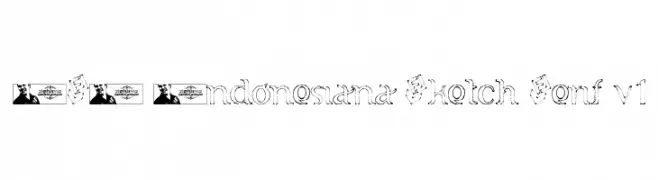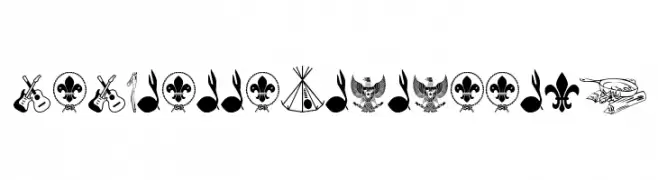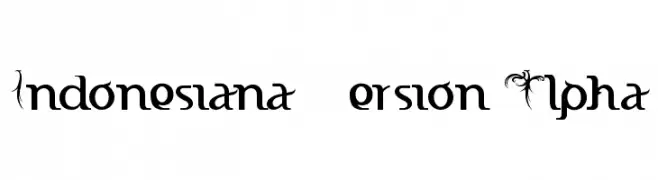
reGermany2006 Font
A modern, rounded font with smooth curves and a playful yet professional appearance.
FTF Indonesiana Serif Font
Font by Fizzetica DepokAsiana TypeFoundry - fizzeticatypefoundry.tumblr.com
A decorative serif font with elegant curves and modern flair.
Indonesia Merdeka Font
Font by Madatype Studio
A bold, brush-style font with a lively, handwritten appearance.
Indonesiana Version Alpha Font
A decorative font with elegant serifs and artistic flourishes, blending traditional and modern styles.
Indonesia Font
A modern, geometric font with clean lines and a bold presence.
Bahasa Indonesia Font
A modern, geometric font with clean lines and a sleek appearance.
Rough Sketch Font
A dynamic, brush-style font with bold, fluid strokes.
PESONA INDONESIA Font
Font by Fanandia Mochamad Adenansyah
A decorative font with leaf motifs, offering a whimsical and organic style.
FTFIndonesianaGoGraffitiana Font
Font by Fizzetica DepokAsiana TypeFoundry - fizzeticatypefoundry.tumblr.com
A bold, angular graffiti-style font with sharp, jagged edges.
FTF Indonesiana Sketch Book Serif Font
Font by Fizzetica DepokAsiana TypeFoundry - fizzeticatypefoundry.tumblr.com
A textured, sketch-like serif font with a hand-drawn, artistic feel.
CRACK WALL Regular Font
A bold, cracked texture font with a rugged, urban style.
made in Indonesia Font
A modern, playful font with rounded edges and geometric structure.
The Youther Font
An elegant, flowing script font with a cursive style.
FTF Indonesiana Go Graffitiana Font
Font by Fizzetica DepokAsiana TypeFoundry - fizzeticatypefoundry.tumblr.com
A bold, graffiti-inspired font with angular, dynamic characters.
FTF Indonesiana Scout vl.1 Font
Font by Fizzetica DepokAsiana TypeFoundry - fizzeticatypefoundry.tumblr.com
A collection of scout-themed icons with bold, illustrative designs.
Breakable Font
A jagged, shattered glass-style font with sharp, angular fragments.
coolin cheer Font
A bold blackletter font with intricate decorative swirls.
FTFIndonesianaBramanangkoeRepackage Font
Font by Fizzetica DepokAsiana TypeFoundry - fizzeticatypefoundry.tumblr.com
A decorative font with elegant, elongated serifs and intricate details.
Flamengo Font
Font by Erlina Graphic
A playful, flowing script font with smooth, cursive strokes.
Catalisya Font